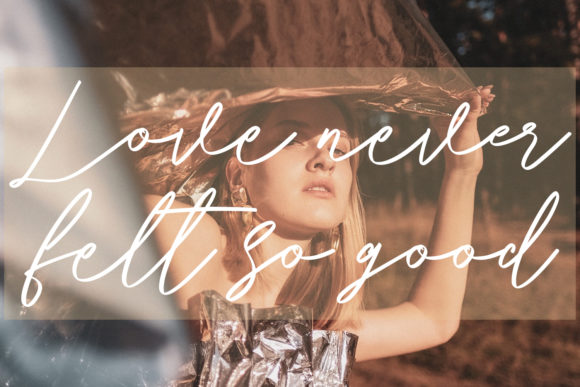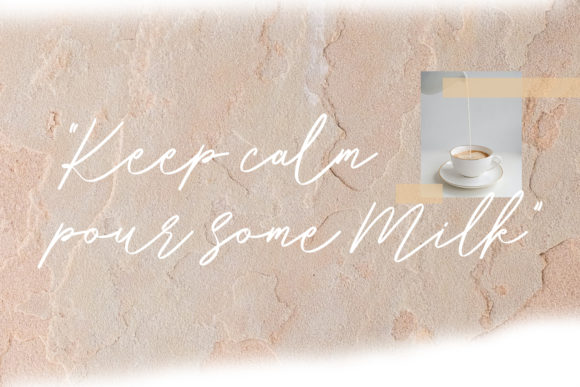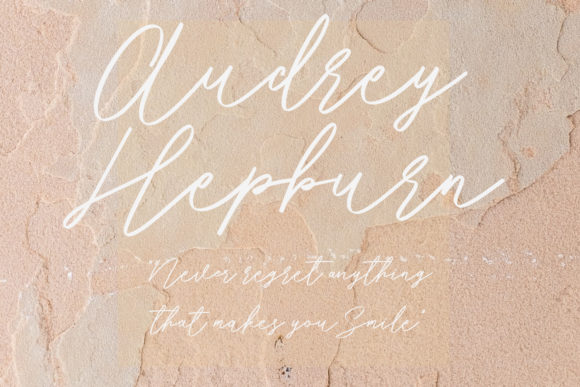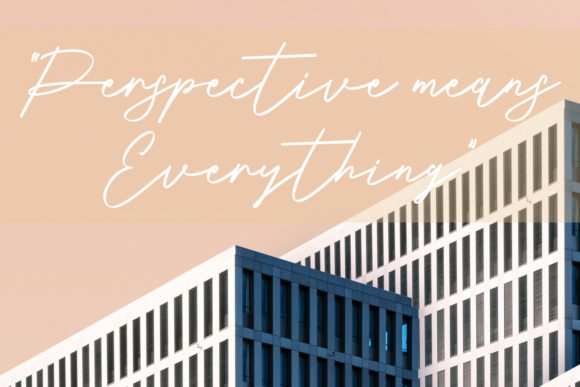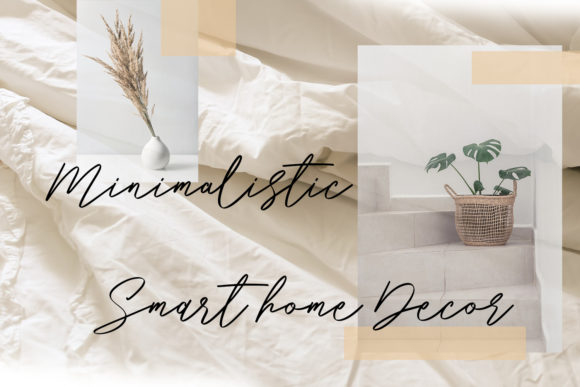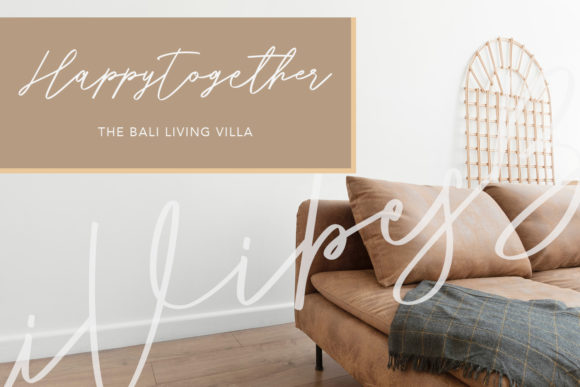
Introduction to Corlathans Font
As a designer, there’s nothing quite like the thrill of bringing a project to life. It’s that moment when the words on the page come together in a way that’s both beautiful and meaningful. For many of us, the right font can make all the difference – and that’s where Corlathans Font comes in. With its delicate, classy look, this luxurious script font is designed to elevate your creative projects and leave a lasting impression.
Whether you’re working on a branding campaign, a wedding invitation, or a novel, Corlathans Font offers the perfect balance of style and sophistication. Its high-quality design makes it a valuable resource for any designer looking to take their work to the next level. Plus, with a transparent background, you can easily integrate it into your projects without any fuss.
Key Features of Corlathans Font
- High-quality design for creative projects, including graphic design, digital art, and web development.
- Includes a comprehensive character set, supporting a wide range of languages and alphabets.
- Designed with a high-resolution (1024 x 1024 pixels) to ensure crisp and clear display on various devices and screens.
- Perfect for use in logos, branding, typography, and other creative projects where a unique and stylish font is required.
Honest Review: Corlathans Font
One of the standout features of Corlathans Font is its versatility. It works well for both digital and print projects, making it a great asset for any creative project. The font is also highly customizable, allowing designers to adjust the size, color, and style to suit their needs.
- High-quality design that’s perfect for digital and print projects
- Transparent background allows for easy customization
- Works well with a variety of design styles
- The font may not be suitable for very small text sizes due to its ornate design
- Some designers may find the font too bold or overpowering
Overall, I’m impressed with the Corlathans Font. It’s a great addition to any designer’s toolkit, and its versatility and customizability make it a valuable resource for creative projects. I highly recommend giving it a try.
Tips for Getting the Most Out of Corlathans Font
Experiment with different font sizes and styles to create a unique look. Combine Corlathans Font with other design elements to create a cohesive and visually appealing design.
Corlathans Font is ideal for a variety of creative projects, including graphic design, digital art, and typography. Its high-quality design and transparent background make it a great choice for creating professional-looking designs.
Alternatives to Corlathans Font
Pacifico is a beautiful script font ideal for creative projects that require a touch of elegance. It features a high-quality design with a transparent background, making it perfect for use on images or as a standalone design element. When to use: Wedding invitations, baby shower invitations, or any other event that requires a sophisticated touch.
Pacifico compares to Corlathans Font in that it has a similar elegant and refined feel, but with a more modern and sleek design. Pacifico is free to download and is a great design resource for any creative project.
Great Vibes is a modern script font that is perfect for designers looking for a high-quality alternative to Corlathans Font. It features a transparent background and a creative design that is ideal for use on images or as a standalone design element. When to use: Social media graphics, blog posts, or any other project that requires a modern and trendy feel.